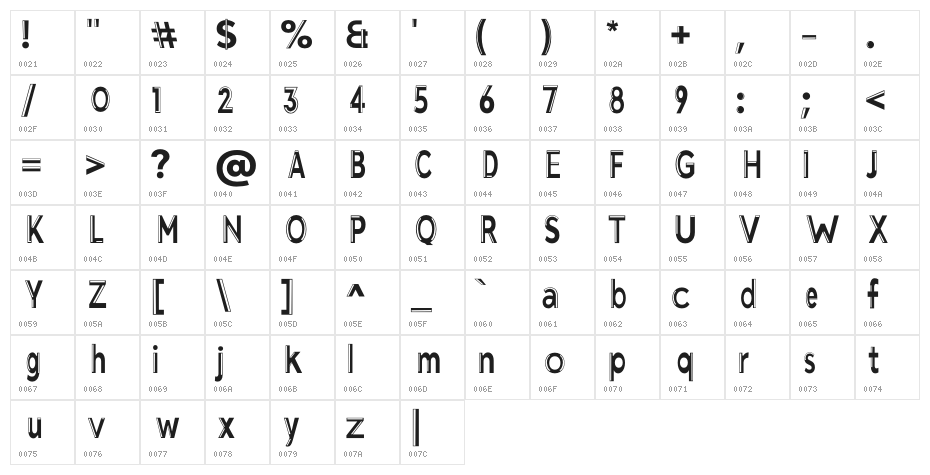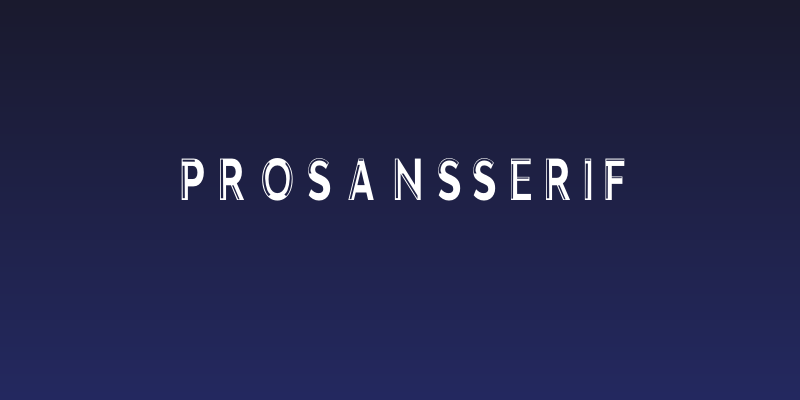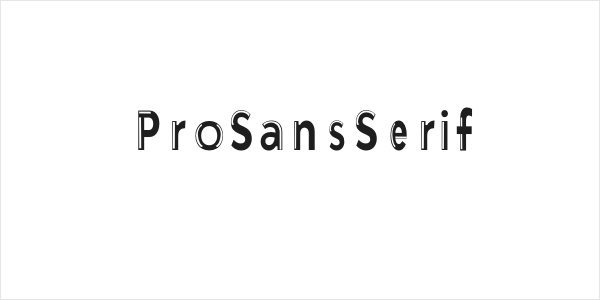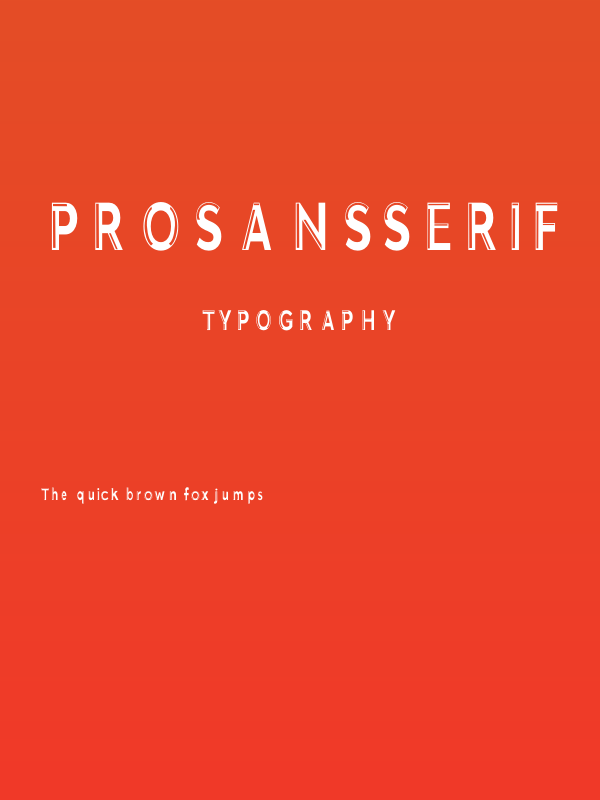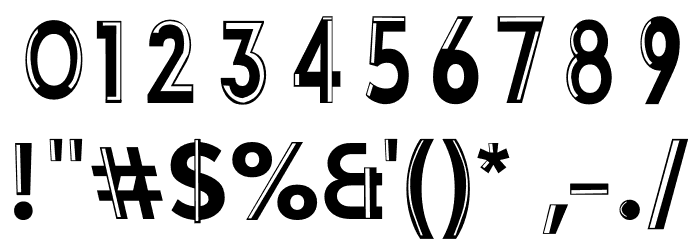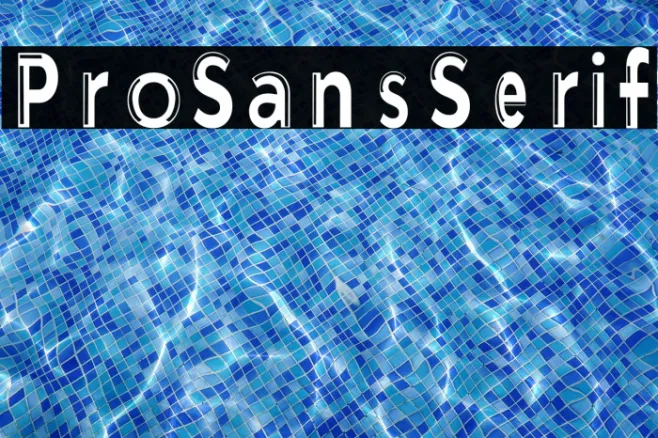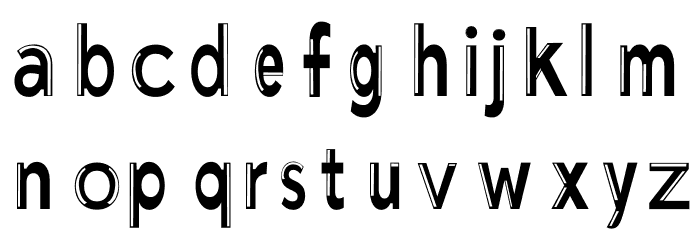
ProSansSerif Font
ProSansSerif Description
This font features a modern sans-serif style with a clean and geometric appearance. The uppercase letters are bold and structured, with a consistent height and width that gives a uniform look. The lowercase letters maintain a similar geometric style, providing a harmonious blend between the two cases. The numerals are distinct and easy to read, matching the overall aesthetic of the font. Special characters are well-defined, adding versatility to the font's usage. The design is straightforward yet impactful, making it suitable for a variety of applications.
Introduction Pro sans serif font is a modern sturdy and striking sans serif typeface that furnishes an attractive look to designs and texture contents when used with Arial font. The main designer of this typeface is a well-appreciated designer Freefontfa
| Use Case | Headlines, Logos, Digital content |
| Proposed Projects | Ideal for branding, advertising, headlines, and digital content where a modern and clean look is desired. |